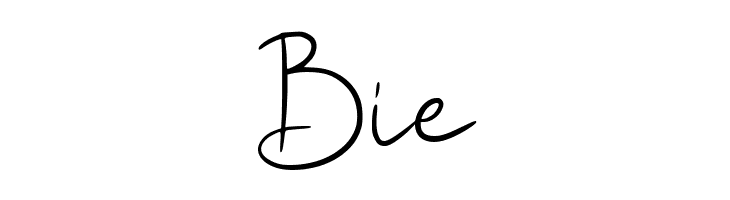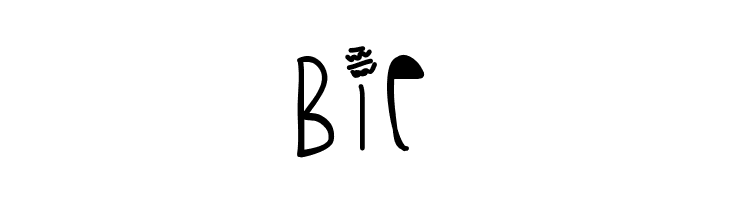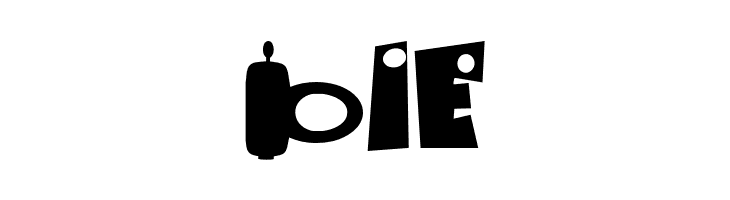
A playful, heart-embellished decorative font with bold, flowing strokes.
An artistic and edgy font with elongated serifs and dynamic curves.
A whimsical, decorative font with curly, enchanting elements.
A lively and expressive handwritten font with fluid strokes and dynamic style.
A playful, hand-drawn font with whimsical, irregular shapes and a casual style.
A whimsical, bold, and condensed decorative font with playful curls.
A decorative and artistic font with bold, fluid strokes and whimsical curves.
A decorative and whimsical font with intricate flourishes and embellishments.
A playful, mousetrap-themed decorative font with bold, creative characters.
A playful, decorative font with striped and dotted characters, perfect for creative projects.